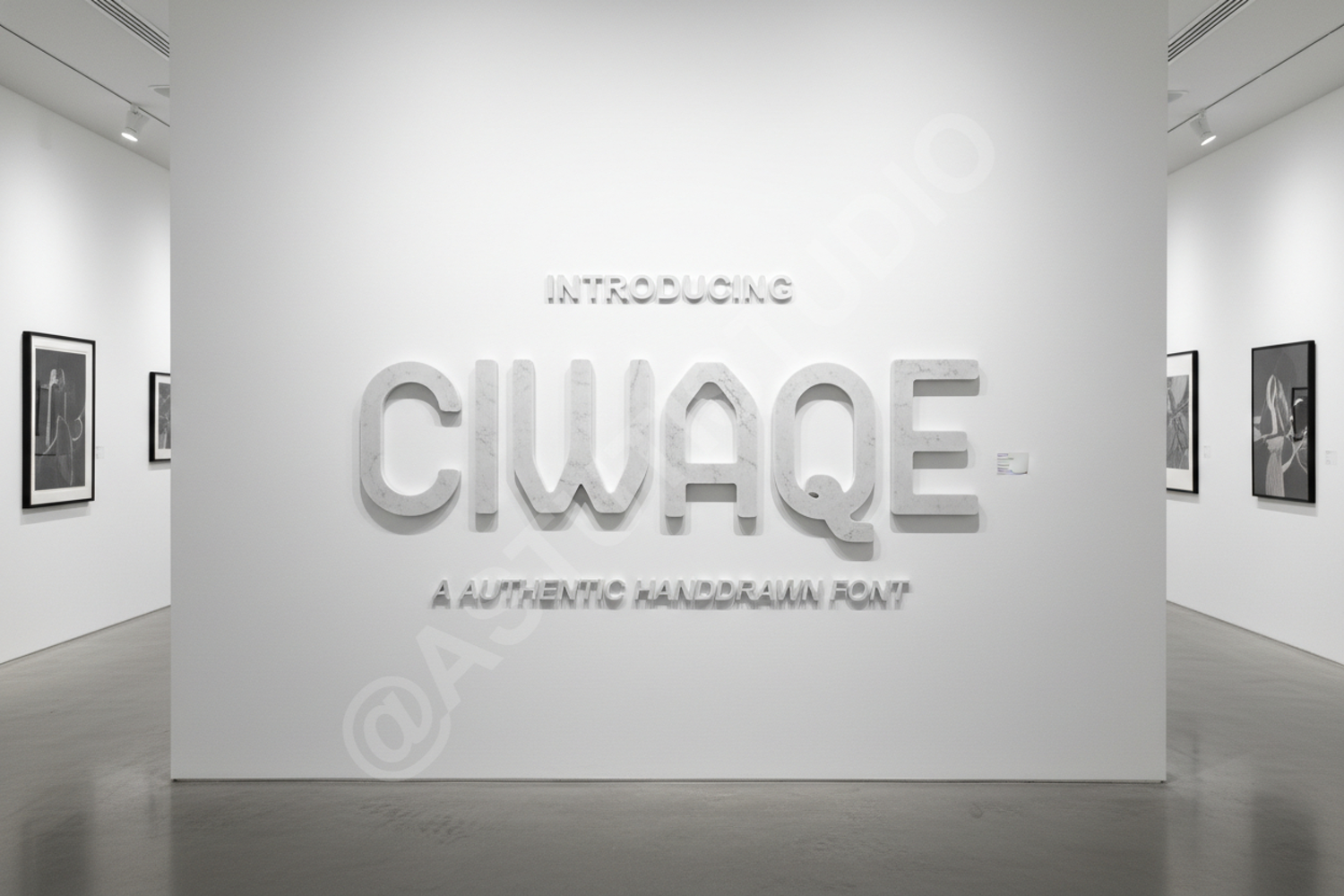
Ciwaqe - Sophisticated Modern Serif Typeface
Ciwaqe
Introduction:
Ciwaqe is a premium serif typeface that embodies elegance and contemporary sophistication. Carefully crafted with refined strokes and balanced proportions, this font is designed to bring a touch of luxury to any creative project. Whether you are aiming for a high-fashion aesthetic or a minimalist professional look, Ciwaqe provides the versatility and polish needed to make your typography stand out.
- Full Character Set (Uppercase and Lowercase)
Optimized Use Cases:
- Luxury Branding and Identity
- Wedding Stationery and Invitations
- Editorial Design and Magazine Layouts
- Logo Design and Wordmarks
- Premium Product Packaging
- High-End Social Media Content